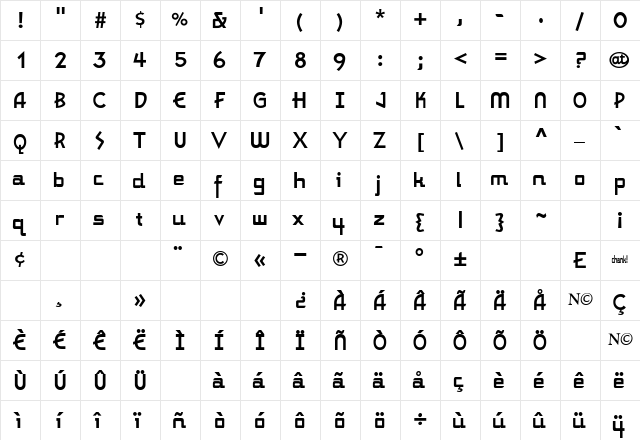
Parkway Resortotel Regular
Design Context for Parkway Resortotel Typeface
Parkway Resortotel takes a measured approach to typography — its balanced proportions and neutral character make it a reliable workhorse for both digital and print work.